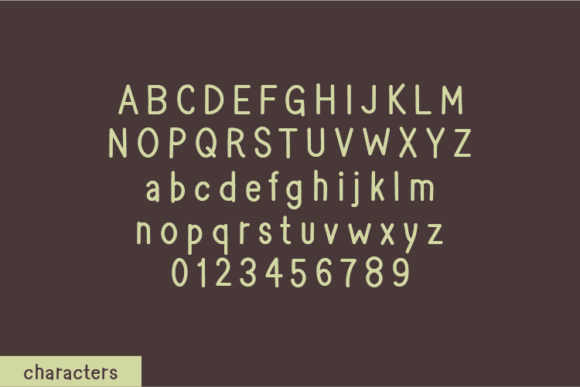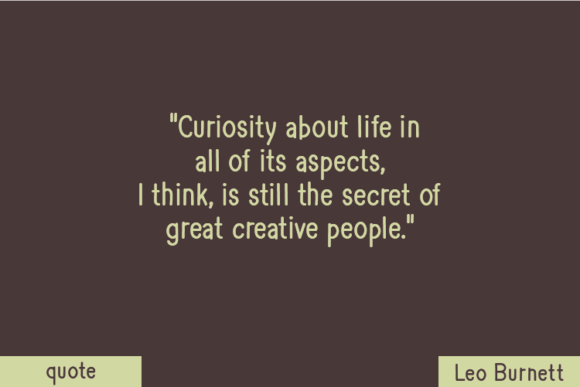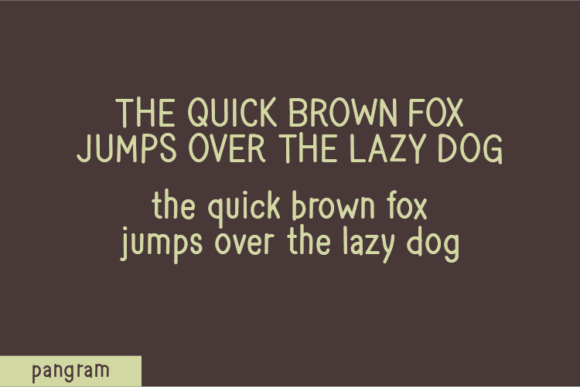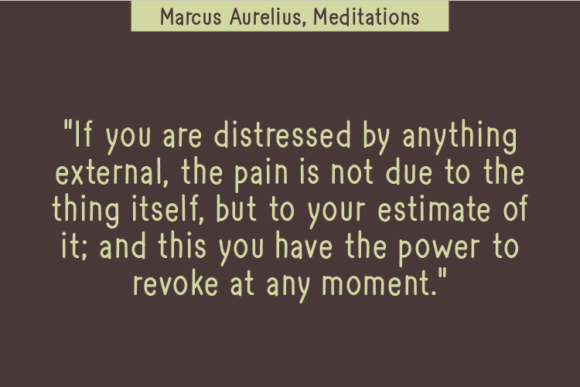
Introduction to Rublingdoll Font
| 👤 Author | Hanna Bie |
For designers, finding the right font can be a game-changer. It’s the difference between a good design and a great one. And that’s where the Rublingdoll Font comes in – a natural handwritten font that’s as unique as it is versatile.
What sets Rublingdoll Font apart is its organic, high-quality design, perfect for any creative project that demands a touch of personality. With a transparent background and a free download option, designers can unlock a world of possibilities without breaking the bank.
Key Features of Rublingdoll Font
- Rublingdoll Font is a high-quality, free design resource ideal for creative projects.
- It features a transparent background, allowing for easy customization and seamless integration into various designs.
- Rublingdoll Font is offered in a single weight, making it perfect for use in a variety of applications, from logos to typography-heavy designs.
- The font is designed with a modern aesthetic, featuring clean lines and a minimalist approach, making it suitable for a range of creative projects.
- The font’s high resolution and crisp details ensure that it will look great in both digital and print applications, from business cards to billboards.
Honest Review: Rublingdoll Font
I recently came across the Rublingdoll Font, and I must say it’s a fantastic design resource. The first thing I noticed was the unique style and high-quality design of the font.
- ✨ The Rublingdoll Font features a beautiful, transparent background that makes it perfect for creative projects that require a touch of elegance.
- ✨ The font is highly customizable, allowing you to adjust the size, color, and style to suit your needs.
- ⚠️ The font may not be suitable for complex, multi-line text, as it can become difficult to read.
- ⚠️ The font is not available in as many languages as some other fonts, which may limit its use in certain creative projects.
Overall, I’m very impressed with the Rublingdoll Font. Its unique style and high-quality design make it a great addition to any design library. While it may have some limitations, it’s definitely worth checking out for your next creative project.
Tips for Getting the Most Out of the Rublingdoll Font
For the best results, use the Rublingdoll Font on a transparent background to create a clean and modern design. Experiment with different font sizes, colors, and styles to add visual interest to your project.
Common Use Cases for the Rublingdoll Font
The Rublingdoll Font is a versatile design resource that can be used in a variety of creative projects, including branding, advertising, and editorial design. Its high-quality design makes it an ideal choice for designers who want to create visually appealing and professional-looking designs.
Is the Rublingdoll Font suitable for high-resolution designs?
Yes, the Rublingdoll Font is designed to be high-quality and suitable for use in high-resolution designs. The font features a transparent background, making it easy to use on images with complex backgrounds. Additionally, the font’s crisp and clean design ensures that it will look great at any resolution.